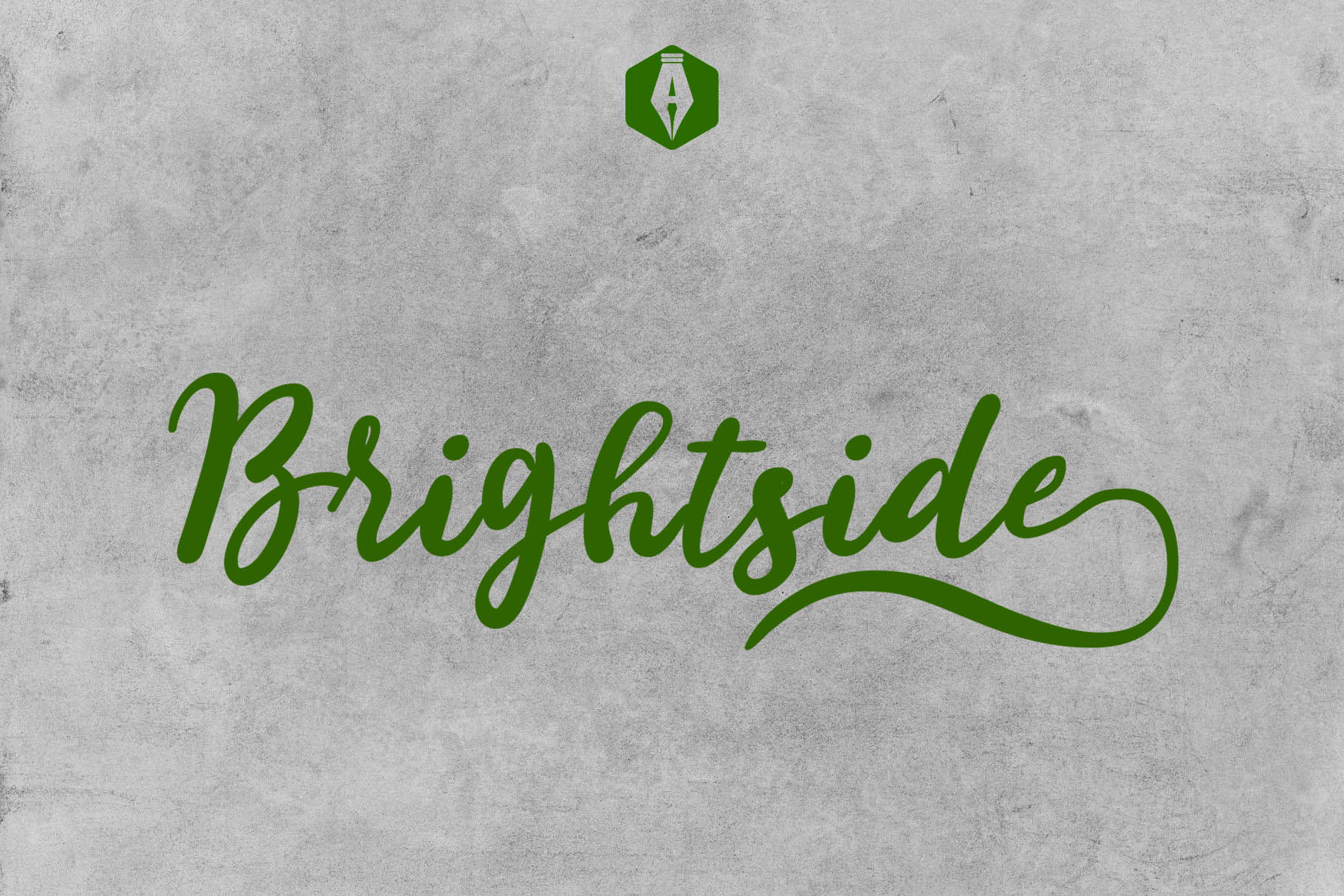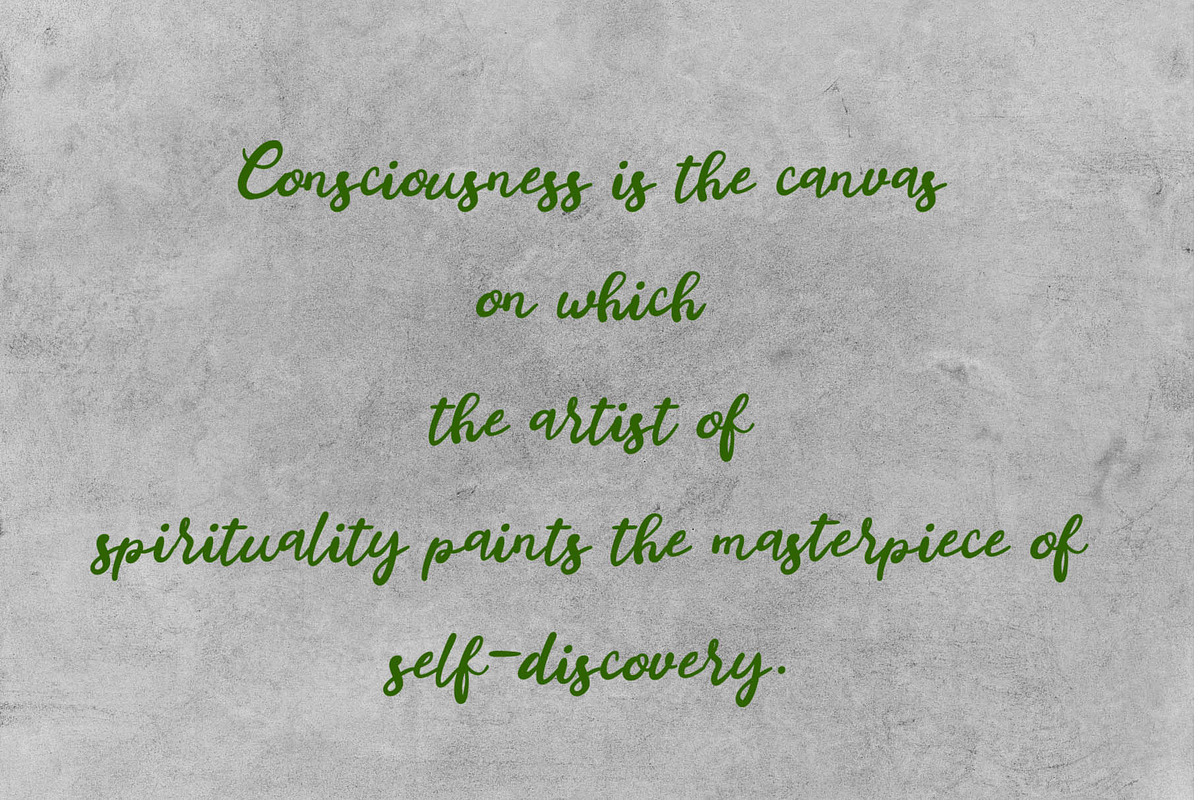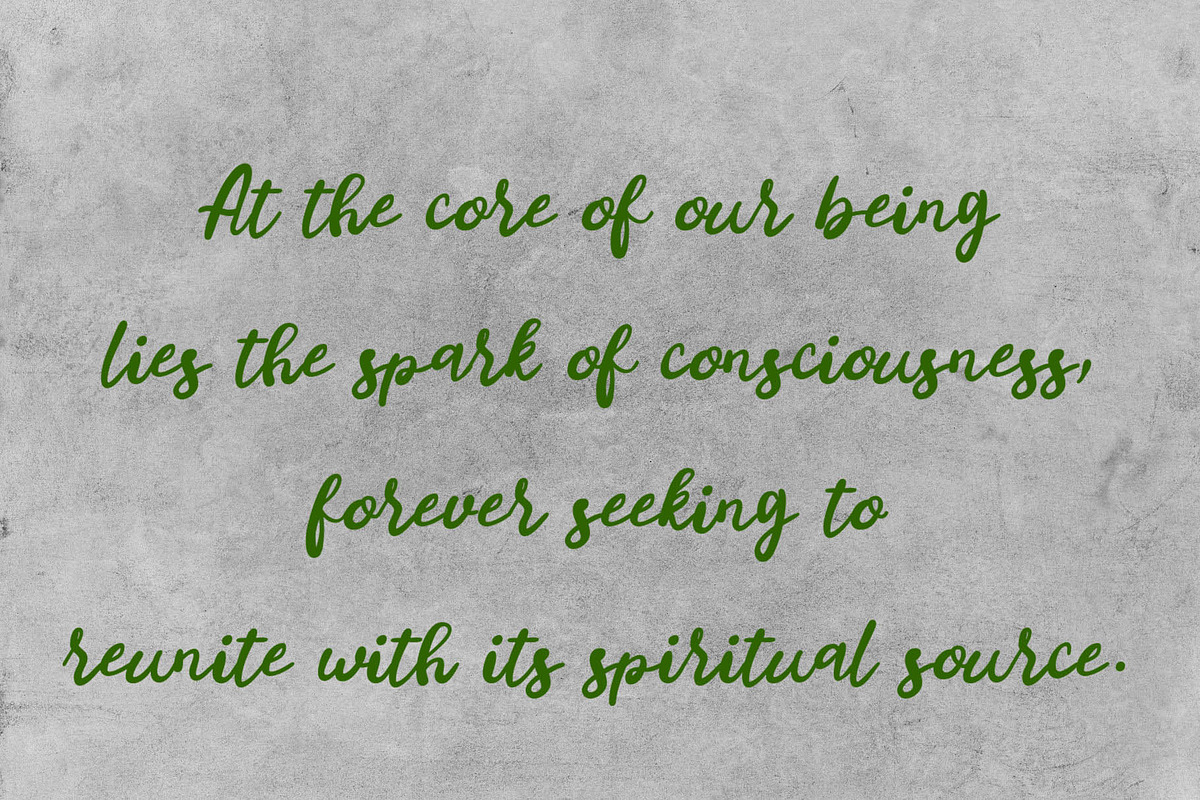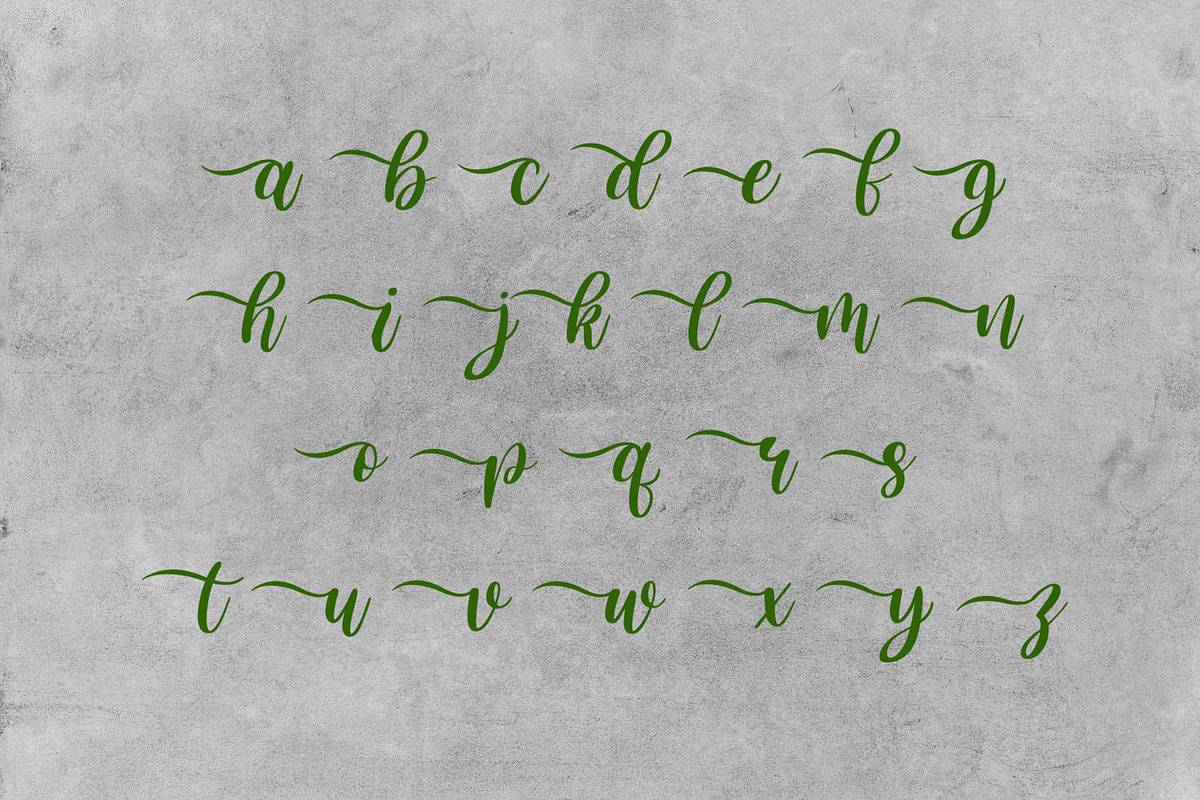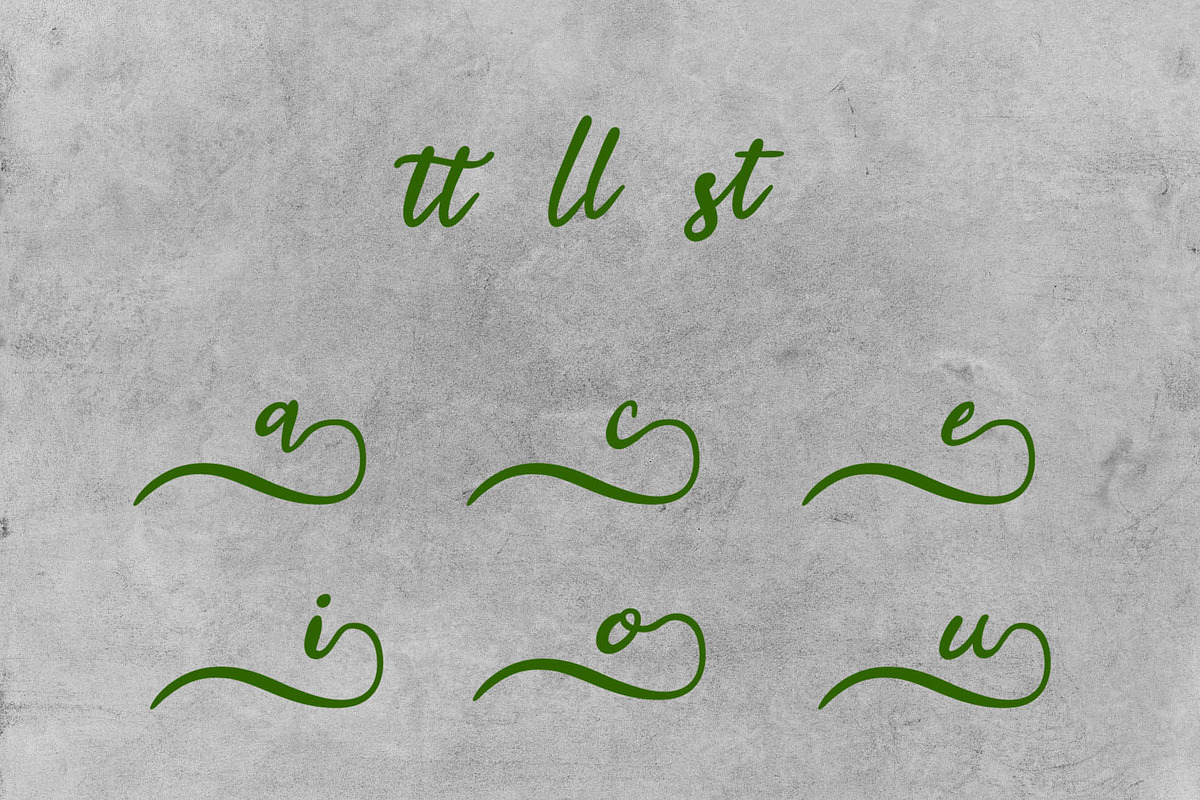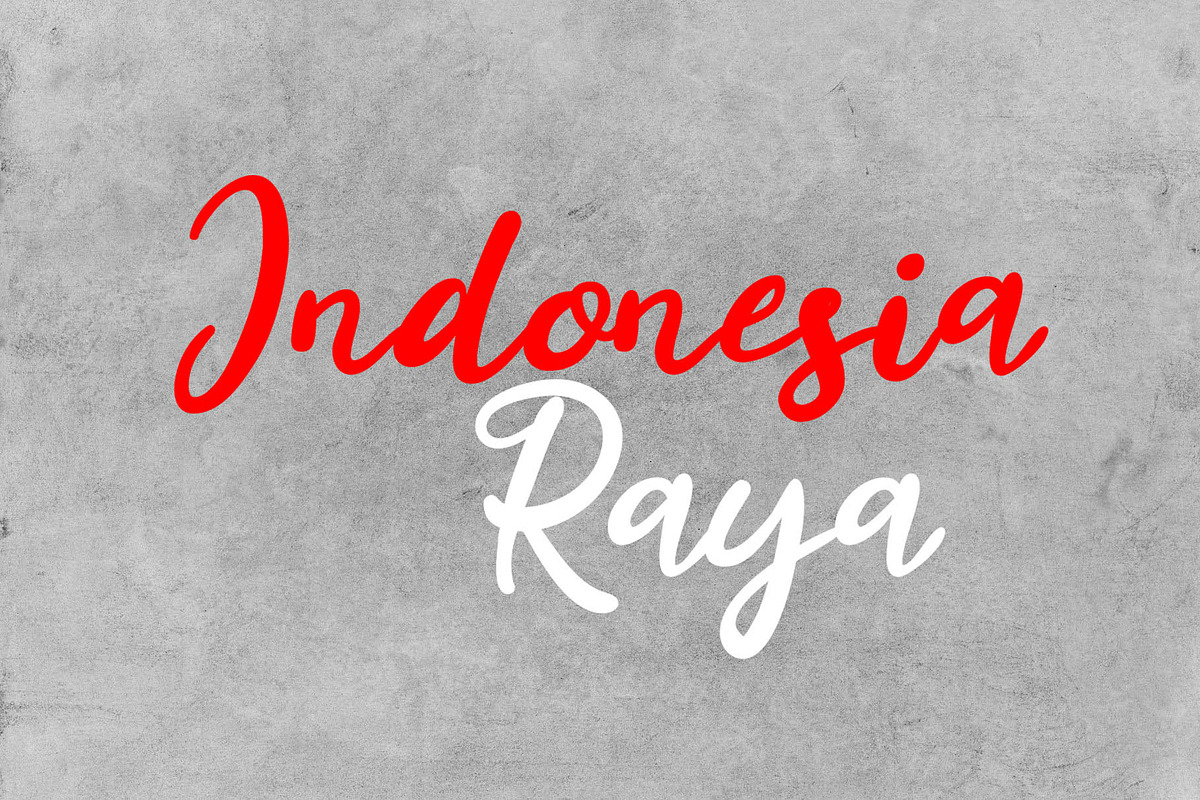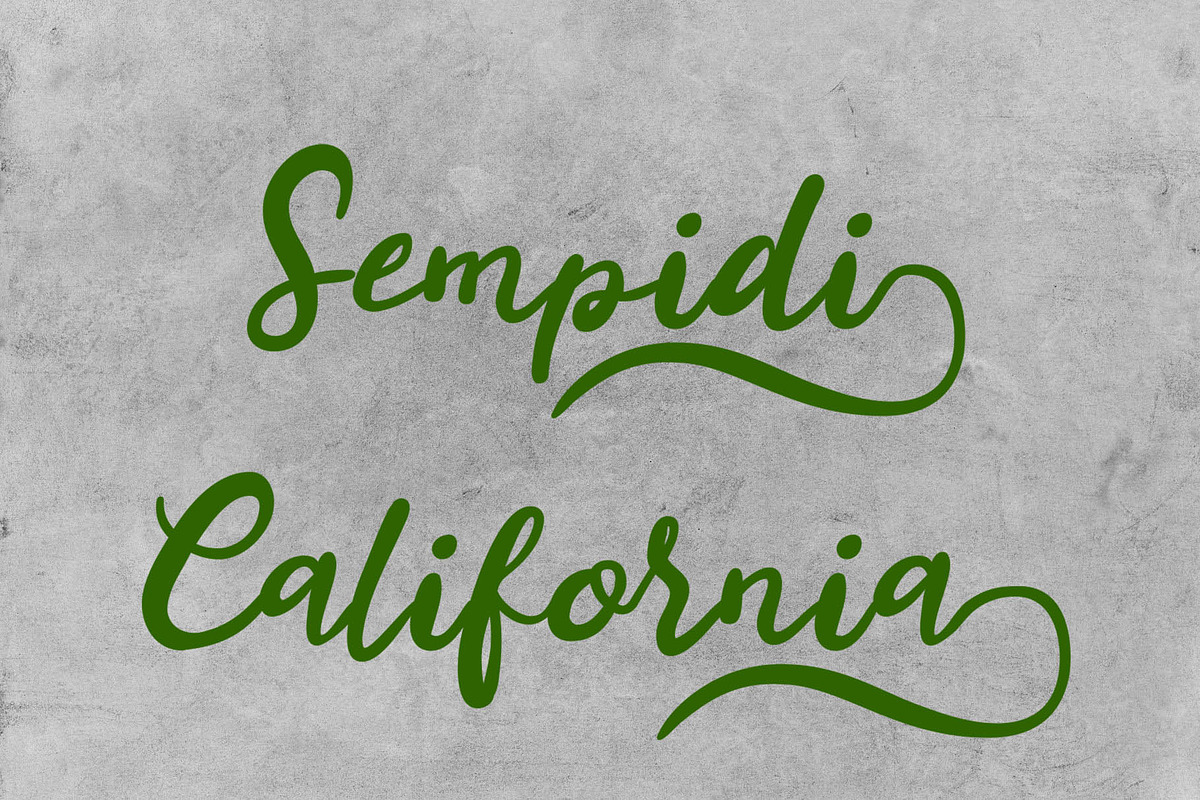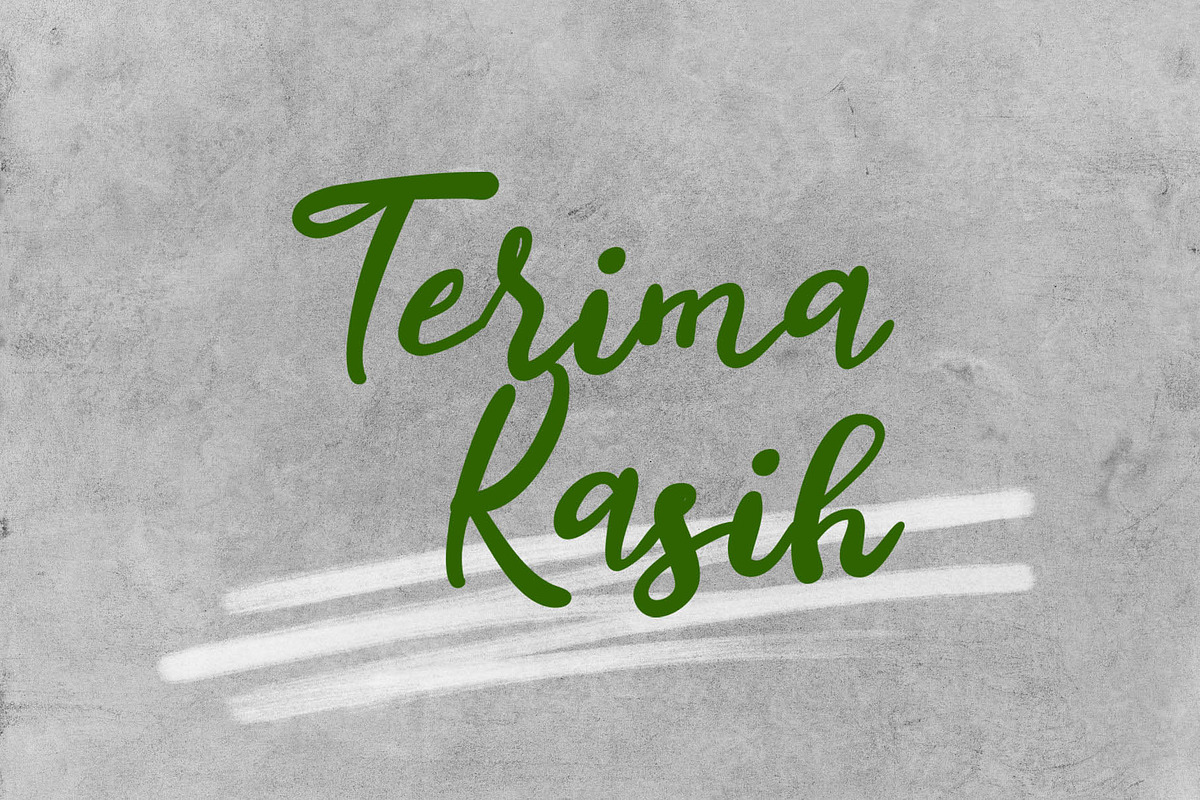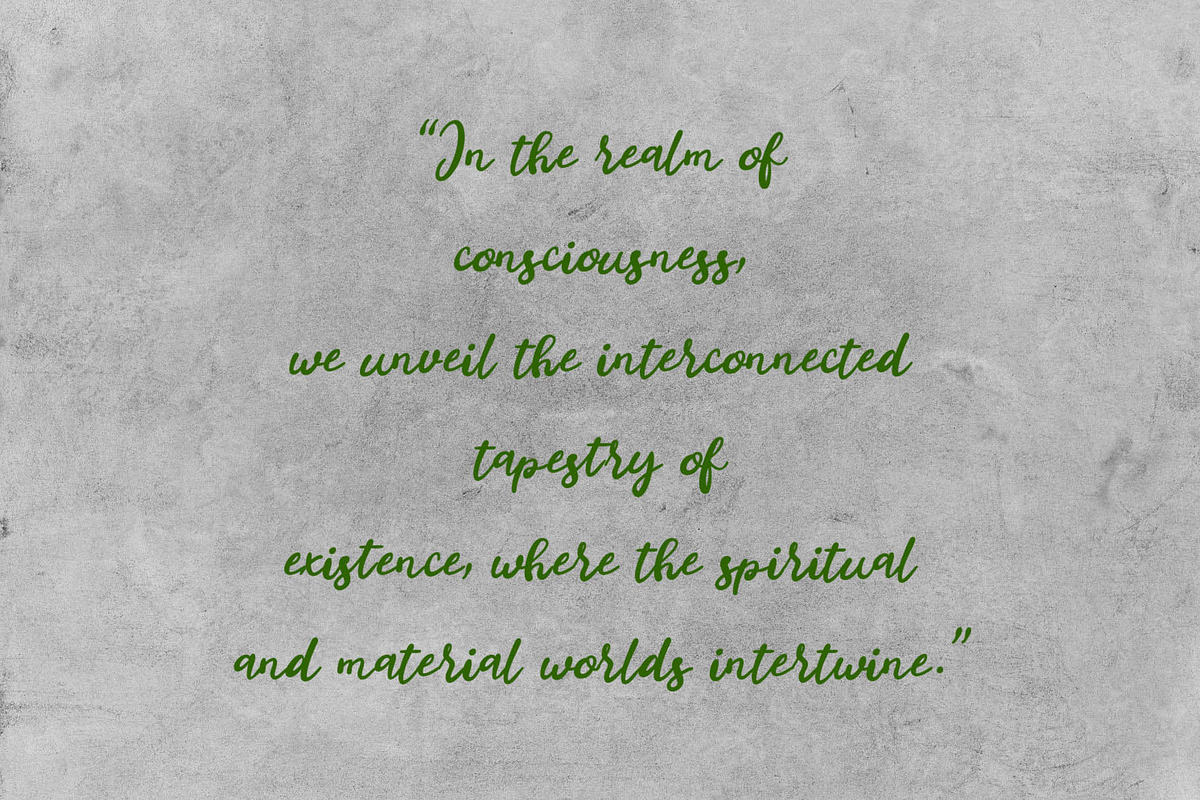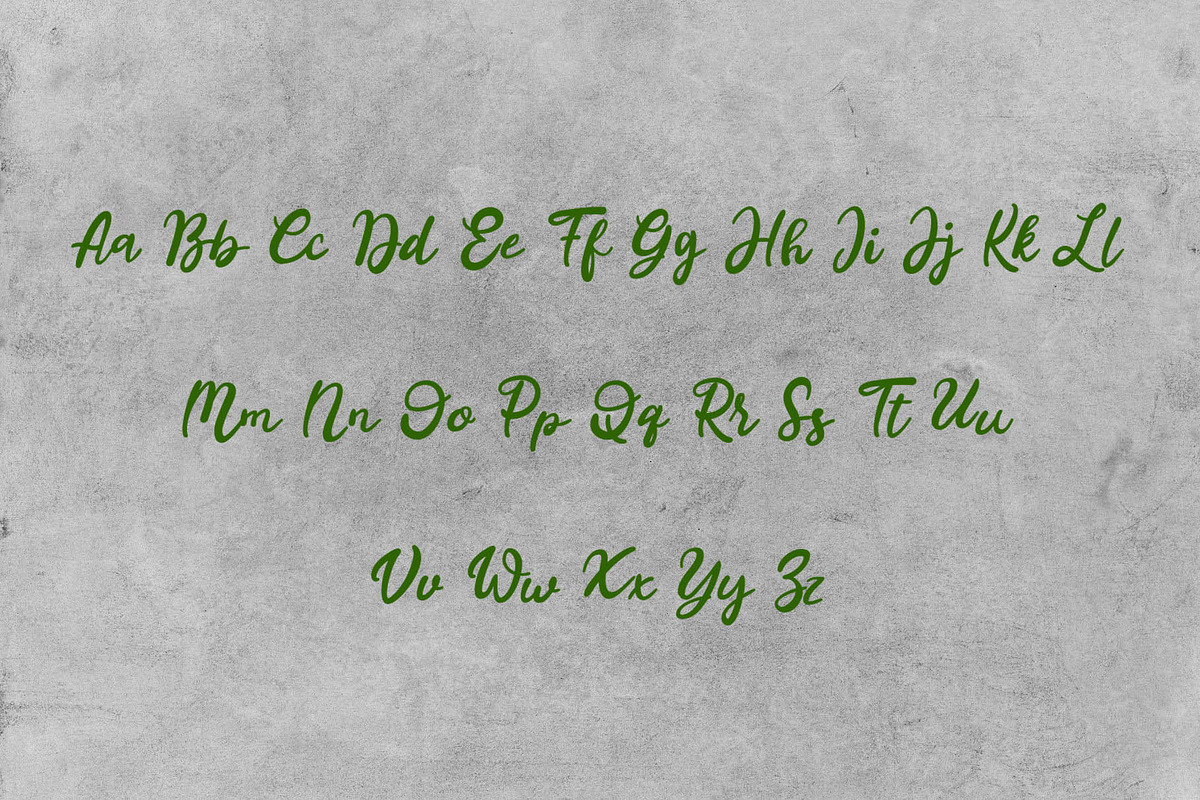
Brightside-Brush Font
Introducing "Brightside-Brush Font": Ignite Creativity and Captivate Audiences
Are you tired of bland and uninspiring typography? Do you want to infuse your designs with personality and flair? Look no further! Say hello to the "Brightside-Brush Font," your ultimate tool for unlocking creativity and making a memorable impact.
Why Choose Brightside-Brush Font?
- Distinctive Appeal: The Brightside-Brush Font exudes character and charm. Its handcrafted brush strokes add an authentic, human touch to your designs, setting you apart from the ordinary.
- Versatile Powerhouse: Whether you're a graphic designer, marketer, or creative enthusiast, this font adapts to your every need. From logos to posters, web banners to social media posts, it's your all-in-one solution.
- Command Attention: Bold and expressive, this font demands attention. Use it for headlines, slogans, or calls to action, and watch your message captivate your audience instantly.
- Professional Precision: While it's bursting with personality, the Brightside-Brush Font doesn't compromise on legibility or professionalism. Each character is meticulously crafted to deliver quality without sacrificing style.